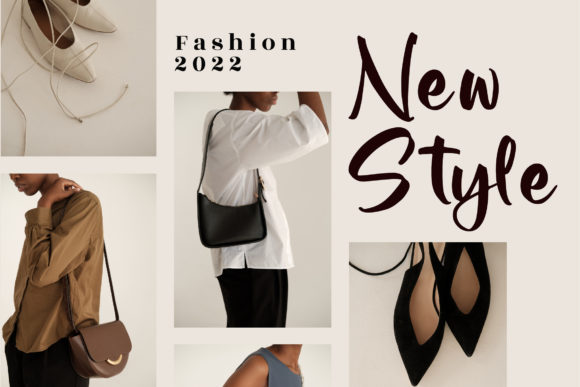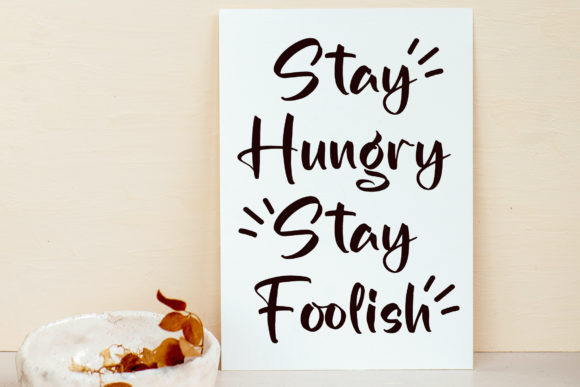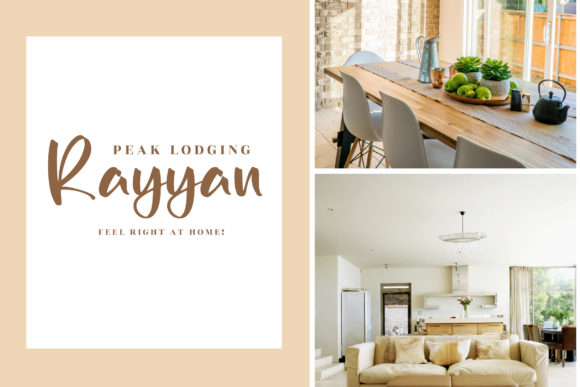
Introduction to Konekta Font
Have you ever found yourself staring at a blank canvas, struggling to bring your creative vision to life? The blank page can be a daunting challenge, but sometimes all it takes is the right design resource to spark inspiration. For me, it was the discovery of the Konekta Font – a delicate and elegant handwritten font that has become my go-to companion for countless creative projects.
What sets Konekta apart is its unique blend of high-quality design and versatility. With its well-balanced letters and PUA encoding, this font is a masterclass in elegance and sophistication. Whether you’re working on a design project that requires a touch of whimsy or a more formal, professional tone, Konekta Font is the perfect choice. And the best part? It’s available for free download, making it an invaluable addition to any designer’s toolkit.
As a design resource, Konekta Font is a game-changer. Its transparent background and intricate details make it perfect for adding a personal touch to your designs, whether you’re working on a logo, poster, or even a website. With Konekta Font, the possibilities are endless, and I’m excited to share its beauty with you.
Key Features of Konekta Font
- High-quality design for creative projects: Konekta Font is a versatile font suitable for various design applications, from logos to digital displays.
- Unique characteristics: Konekta Font features a unique blend of modern and vintage elements, adding a touch of sophistication to any creative project.
- Easy to use: With its simple and clean design, Konekta Font is easy to use and integrate into your design workflow, making it an excellent design resource.
Honest Review: Konekta Font
I recently stumbled upon the Konekta Font while searching for free design resources to elevate my creative project. I must say, it’s been a game-changer. ✨ The font’s high quality and versatility have made it an excellent addition to my design arsenal.
One of the standout features of the Konekta Font is its transparent background, which allows for seamless integration with any design element. This has been a lifesaver for me, as it’s saved me a significant amount of time and effort in the design process.
- Extensive character set, including a wide range of languages
Overall, I’m thoroughly impressed with the Konekta Font. Its high quality, versatility, and free download make it an excellent choice for designers working on creative projects. I highly recommend it to anyone looking for a reliable design resource.